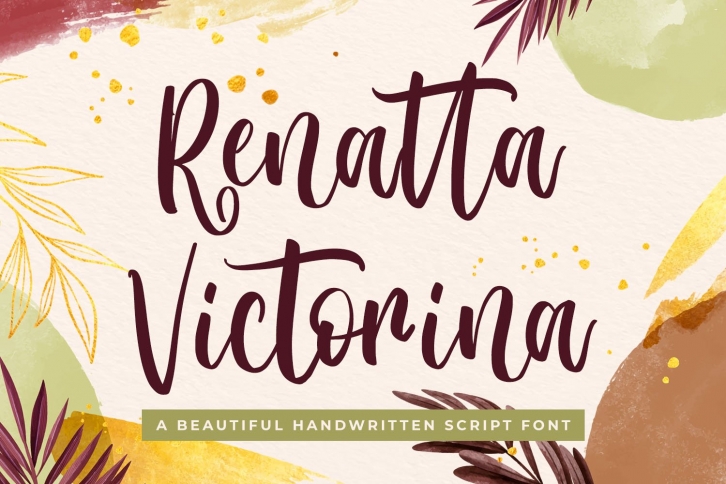
Renatta Victorina Script FONT Download
Renatta Victorina is an elegant and sweet script with a romantic spark. Use it to add that special enchanting touch to any design idea you can think of!
Renatta Victorina would be perfect for logos & branding, photography, watermark, social media posts, advertisements, invitation, product designs, label, stationery, wedding designs, product packaging, special events or anything that need handwriting taste.